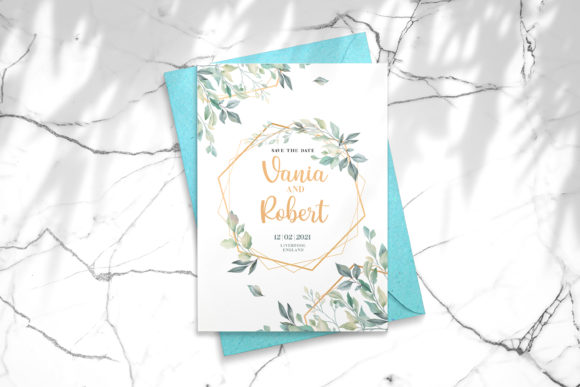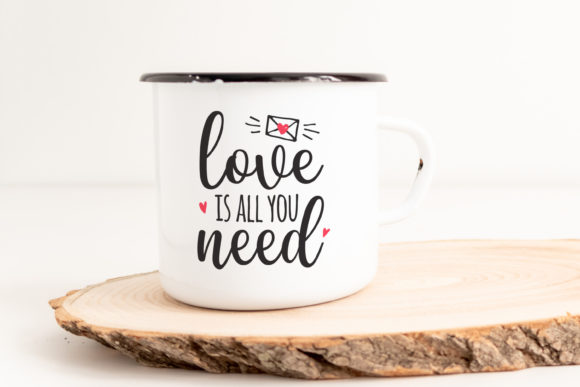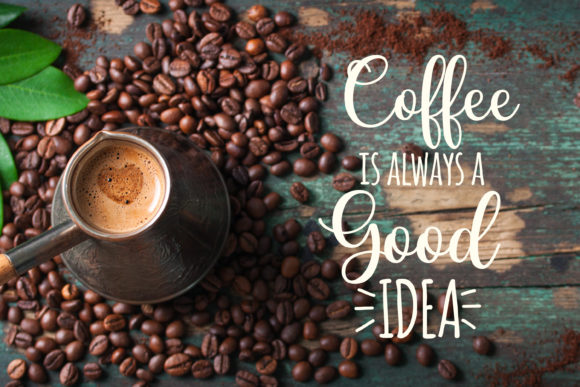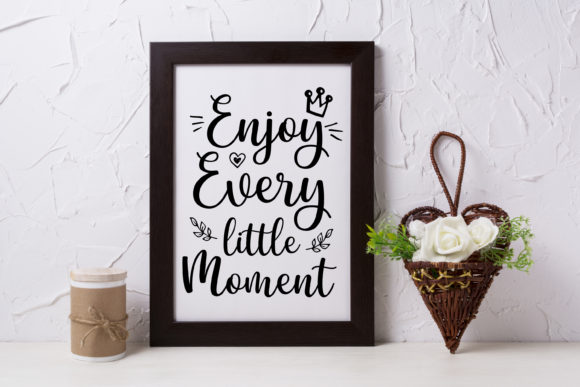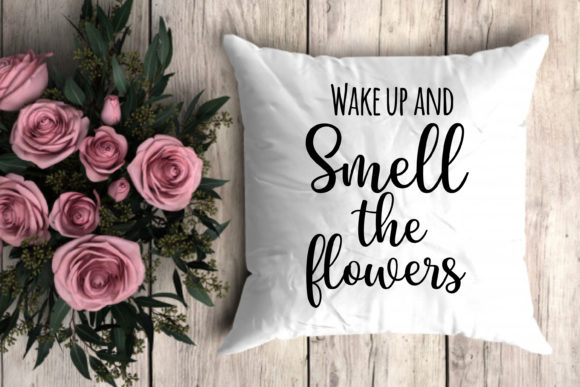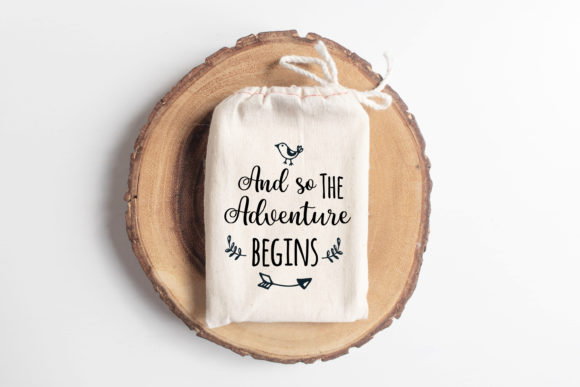
Introducing Amberia Font: The Sweet and Fancy Hand-Lettered Script for Stunning Calligraphy Art
Are you a designer or crafter looking for a unique and playful font to add a touch of elegance to your designs? Look no further than Amberia Font, a sweet and fancy hand-lettered script that is sure to make your creations come alive. With its rounded characters and whimsical feel, Amberia is the perfect font for creating stunning calligraphy art that will leave a lasting impression.
What is Amberia Font?
Amberia Font is a hand-lettered script font that is designed to bring a touch of sweetness and sophistication to your designs. Each character is carefully crafted to create a playful and rounded feel that is both elegant and approachable. Whether you’re creating wedding invitations, party decorations, or social media graphics, Amberia Font is the perfect choice for adding a personal touch to your designs.
Key Features of Amberia Font
- Hand-lettered script: Amberia Font is a unique and authentic hand-lettered script font that is designed to mimic the look and feel of traditional calligraphy.
- Playful rounded characters: The rounded characters of Amberia Font give it a playful and whimsical feel that is perfect for creating stunning calligraphy art.
- Elegant and sophisticated: Despite its playful feel, Amberia Font is also elegant and sophisticated, making it perfect for a wide range of design applications.
- Easy to read: Despite its ornate feel, Amberia Font is surprisingly easy to read, making it perfect for use in body text as well as headlines.
Uses for Amberia Font
Amberia Font is a versatile font that can be used in a wide range of design applications, including:
- Wedding invitations and decorations: Add a touch of elegance and sophistication to your wedding designs with Amberia Font.
- Party decorations and invitations: Create stunning party decorations and invitations with Amberia Font’s playful and whimsical feel.
- Social media graphics: Use Amberia Font to add a personal touch to your social media graphics and make them stand out from the crowd.
- Calligraphy art: Create stunning calligraphy art with Amberia Font’s rounded characters and elegant feel.
Tips for Using Amberia Font
Here are a few tips for getting the most out of Amberia Font:
- Use it sparingly: Amberia Font is a bold and eye-catching font, so use it sparingly to add emphasis to your designs.
- Experiment with colors: Amberia Font looks great in a wide range of colors, so don’t be afraid to experiment and find the perfect color for your design.
- Pair it with other fonts: Amberia Font pairs well with a wide range of other fonts, so try pairing it with a bold sans-serif font for a striking contrast.
Amberia Font is a sweet and fancy hand-lettered script font that is perfect for creating stunning calligraphy art. With its playful rounded characters and elegant feel, it’s the perfect choice for designers and crafters looking to add a touch of sophistication to their designs. Whether you’re creating wedding invitations, party decorations, or social media graphics, Amberia Font is sure to make your designs come alive.